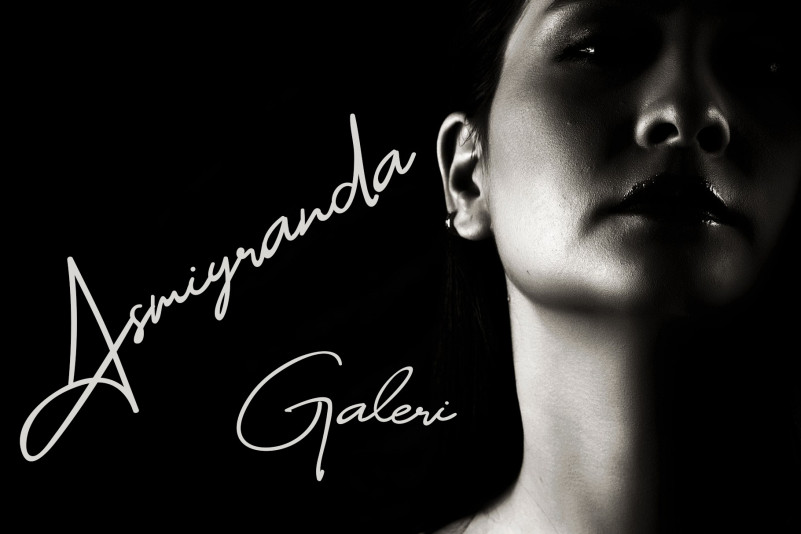
Anfather Font
Anfather Handwritten Font
This is a lovely and timeless handwritten font. It is the best choice for creating eye catching logos, branding and quotes. Every letter has a unique and beautiful touch, which will make your design come alive!